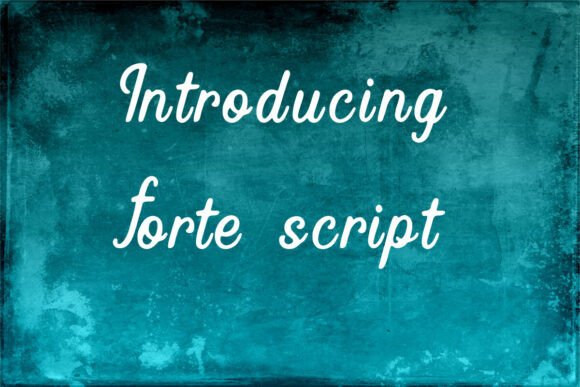
Unlock Endless Creativity with Forte Script Font
Embark on a creative journey with Forte Script, a stunning font that has become a favorite among designers and crafters alike. Its elegant and trendy design makes it the perfect choice for a multitude of visual expressions, from fashion statements like trendy t-shirts and vibrant stickers to eye-catching branding that sets your business apart.
Elevate Your Designs with Forte Script
Forte Script brings a touch of sophistication and flair to various design projects. Whether you’re working on magazine layouts, greeting cards, or Cricut projects, this font adds a level of charm and artistic touch that is hard to replicate. Its versatility is one of its most significant advantages, allowing you to experiment with different design ideas and bring your imagination to life.
The applications of Forte Script are endless. Here are some of the many ways you can use this incredible font:
- Trendy T-Shirts: Create fashion-forward designs that will make your apparel stand out. Forte Script’s unique style ensures your t-shirts will be anything but ordinary.
- Vibrant Stickers: Add a personal touch to your stickers, making them perfect for gifts, decorations, or marketing materials.
- Eye-Catching Branding: Elevate your brand’s visual identity with a font that exudes elegance and trendiness.
- Magazine Layouts: Bring a sophisticated touch to your publications, making them more engaging for your readers.
- Greeting Cards: Add a personal and artistic touch to your cards, making them memorable for the recipient.
- Cricut Projects: Explore the full potential of your Cricut machine with a font that complements its cutting-edge technology.
- Impressive Posters: Create visually stunning posters that capture attention and convey your message effectively.
- Social Media Visuals: Enhance your social media presence with unique and engaging visuals that showcase your brand’s personality.
Why Choose Forte Script?
With so many fonts available, why should Forte Script be your go-to typography? The answer lies in its unique blend of elegance, trendiness, and versatility. Here are a few reasons why Forte Script stands out:
- Unique Style: Its distinctive script design sets it apart from more traditional fonts, giving your designs a contemporary edge.
- Wide Range of Applications: From digital designs to physical products, Forte Script adapts seamlessly to various mediums.
- Ease of Use: Whether you’re a professional designer or a DIY crafter, Forte Script is easy to incorporate into your projects, requiring no advanced design skills.
- Experiment with Designs: Start experimenting with Forte Script in various projects, from digital mockups to physical crafts.
Forte Script Font is more than just a typography option; it’s a creative companion that can elevate your designs to new heights. Its elegance, versatility, and compatibility with various formats make it an indispensable tool for designers and crafters. Whether you’re looking to enhance your professional portfolio or add a personal touch to your DIY projects, Forte Script is ready to bring your creative visions to life. Welcome Forte Script into your creative toolkit and watch your designs come alive with a touch of sophistication and trendiness.